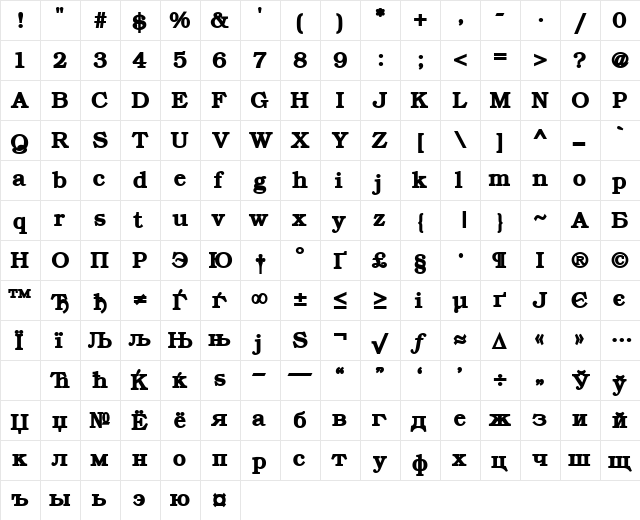
ER Bukinist Mac Bold
Design Context for ER Bukinist Mac Typeface
ER Bukinist Mac takes a measured approach to typography — its balanced proportions and neutral character make it a reliable workhorse for both digital and print work. The heavy weight commands attention and anchors typographic hierarchies.